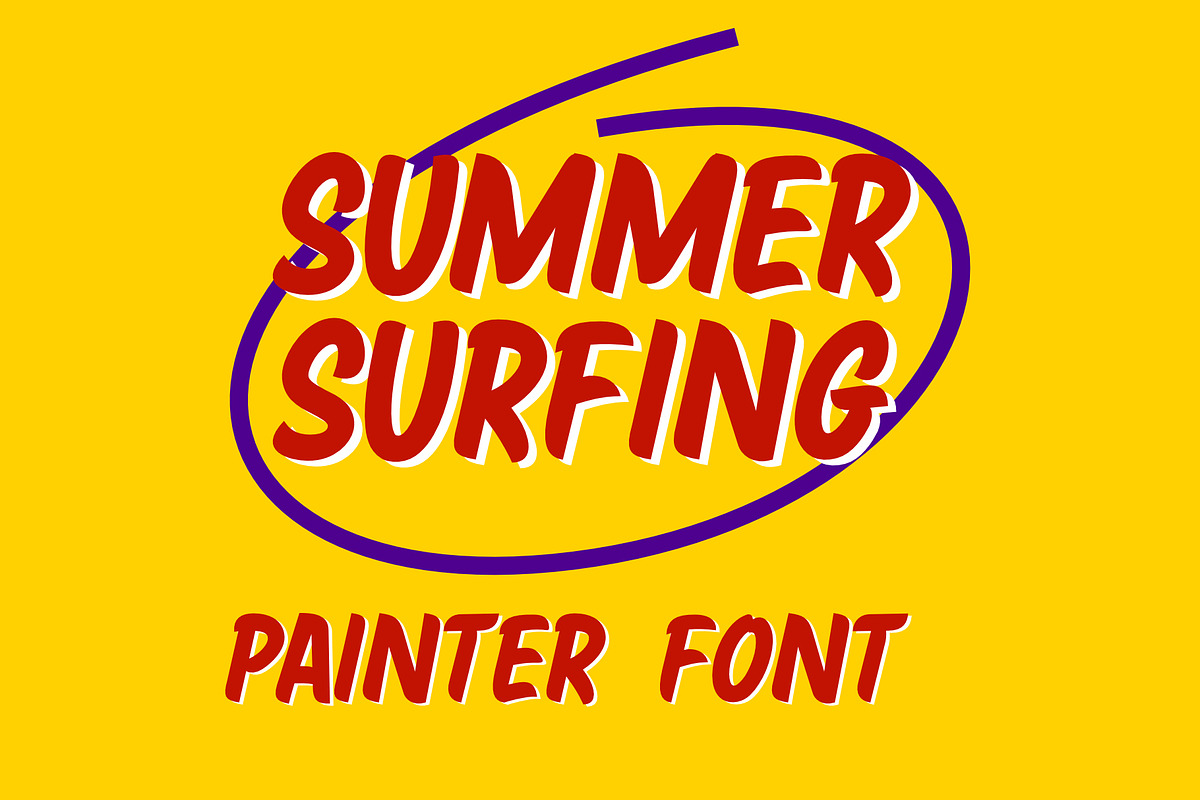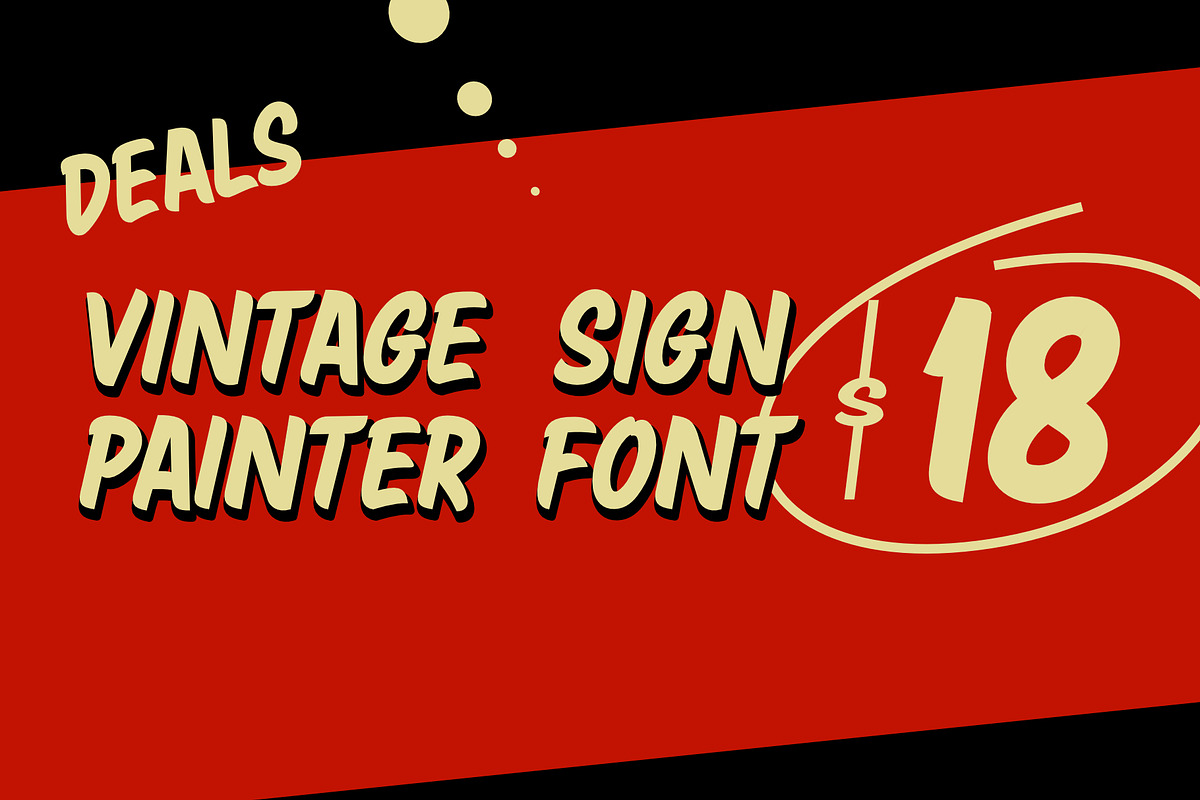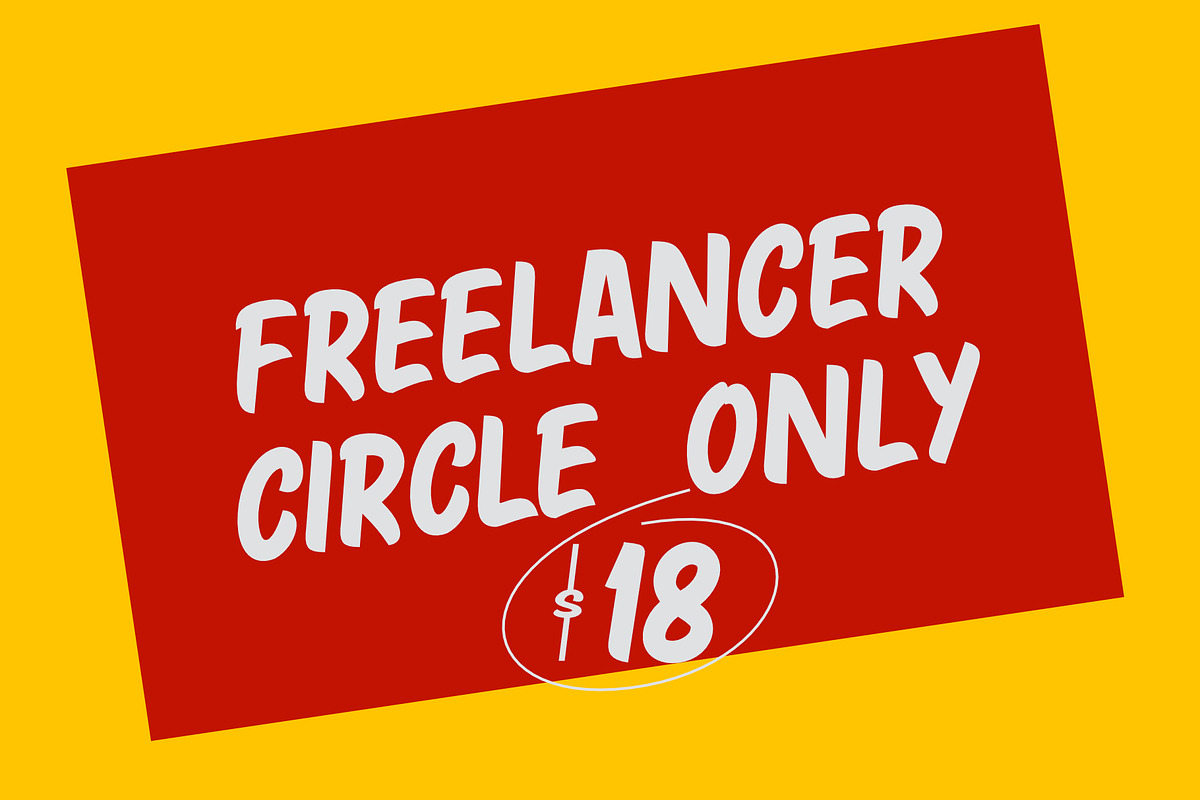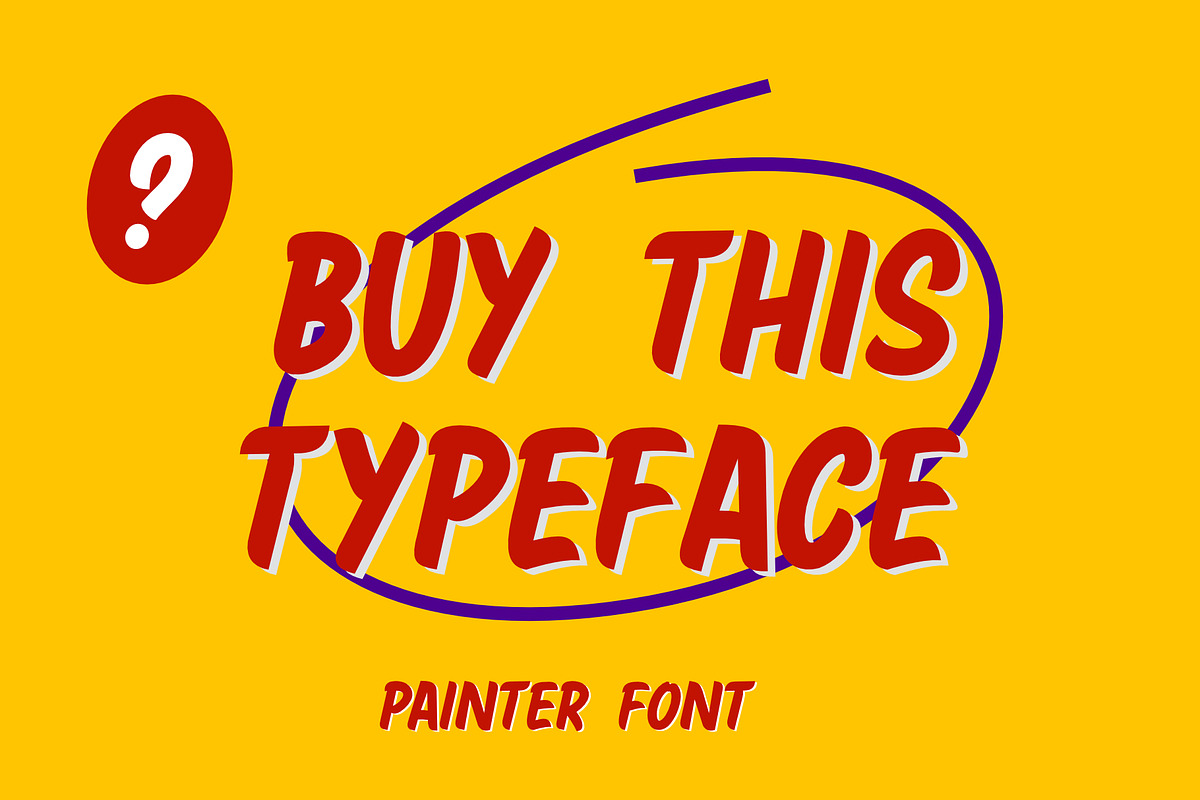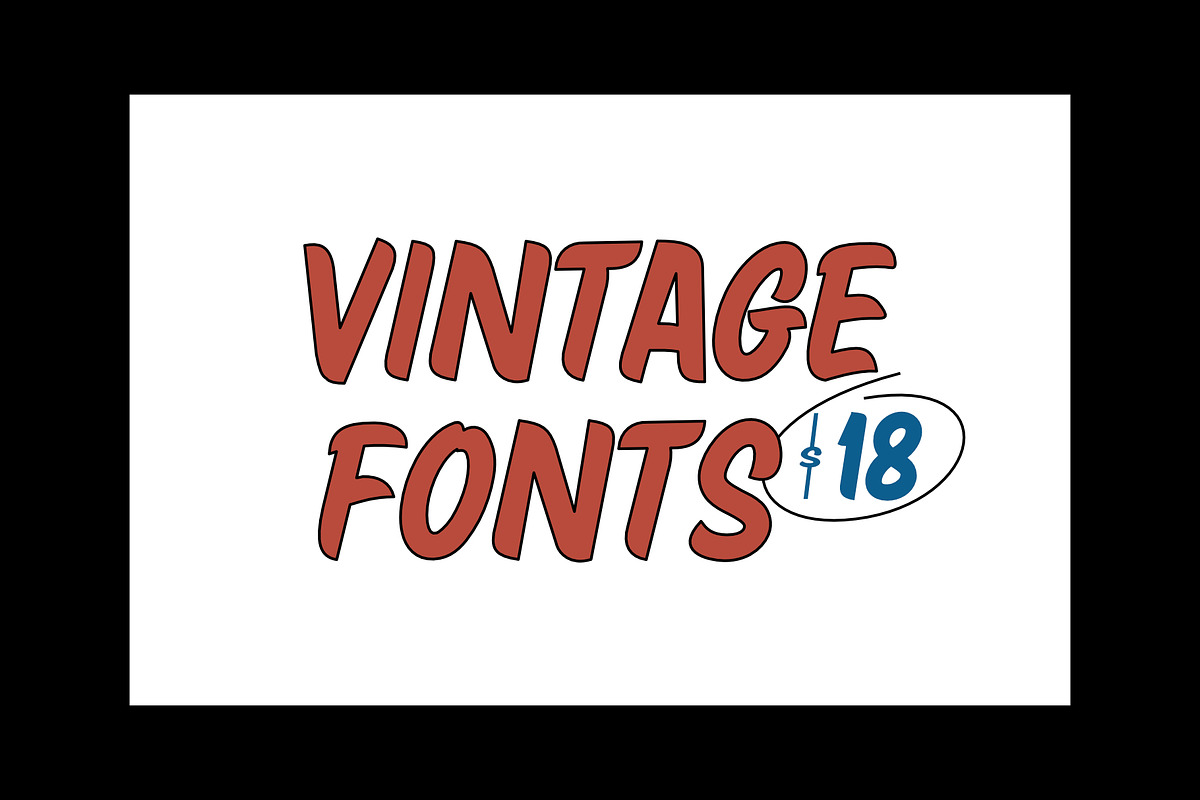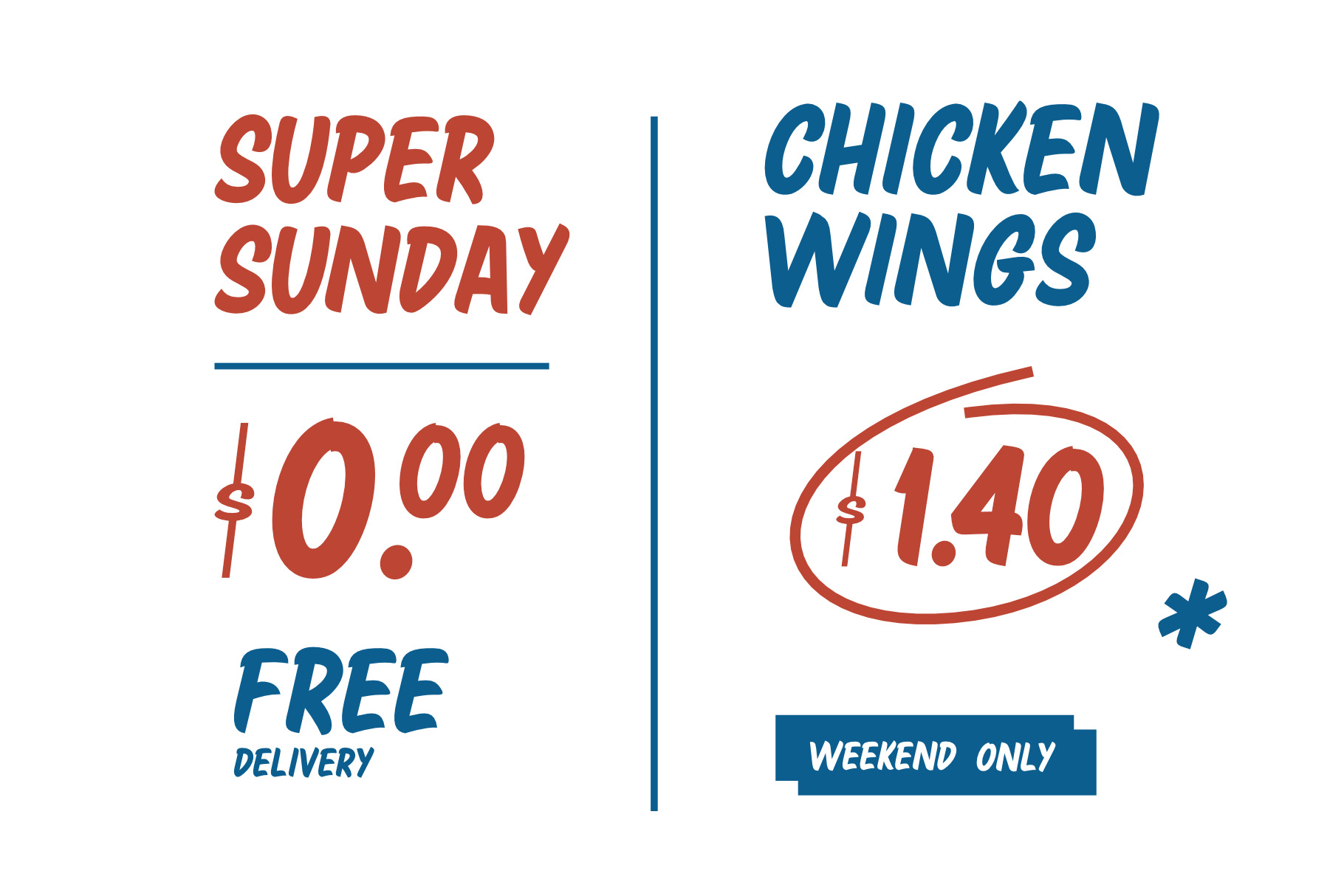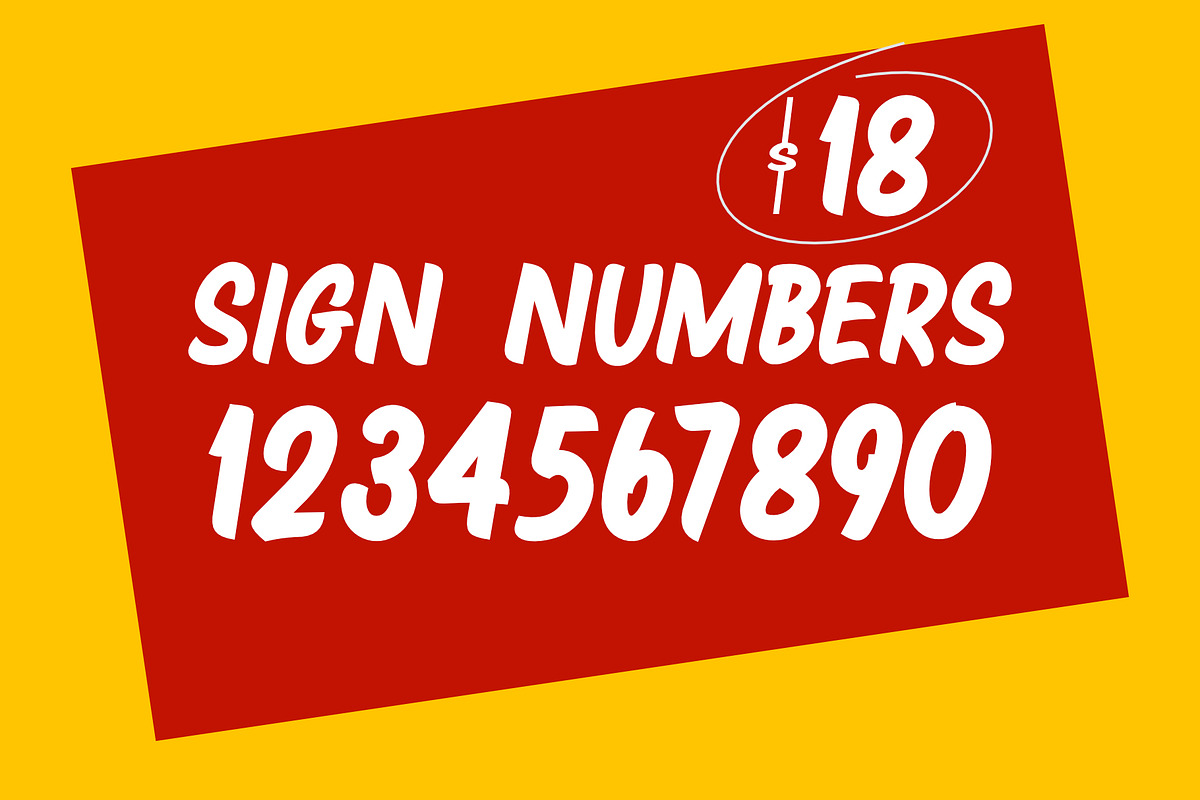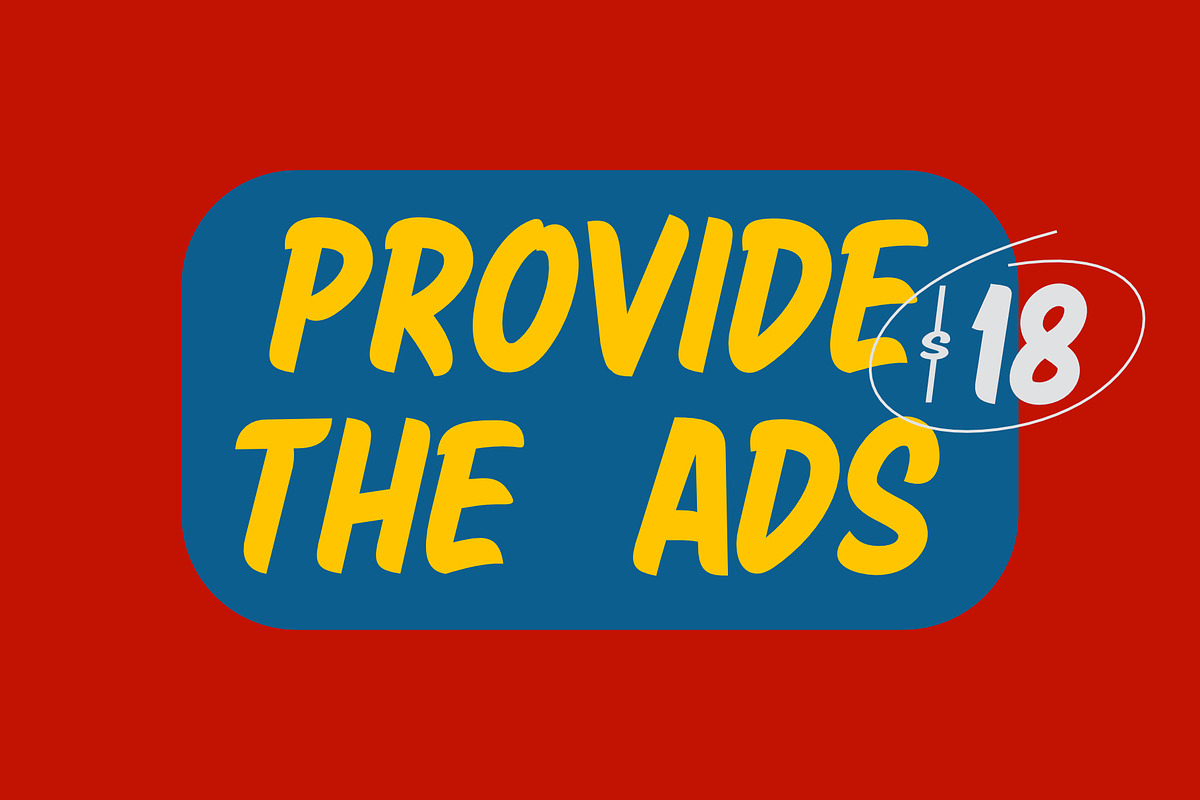
Deal | Modern Sign Painter Font
Deal is a bold, retro-inspired sign painter font that brings serious vintage vibes with a modern twist. It’s got that perfectly imperfect handwritten feel, mixed with just the right amount of grunge and stamp-style character—making it a total go-to for standout logos, branding, and creative design projects.
Whether you're designing for a fashion label, a retro brand, or just want something with a bit more personality, Deal delivers with bold strokes and an effortlessly elegant edge. It’s made for those who appreciate minimal design but still want a punch of vintage charm.
From logo design to brand identity, posters to packaging—Deal is the kind of font that adds instant cool and authenticity. It’s the real deal for any project that needs a touch of classic grit with modern style.